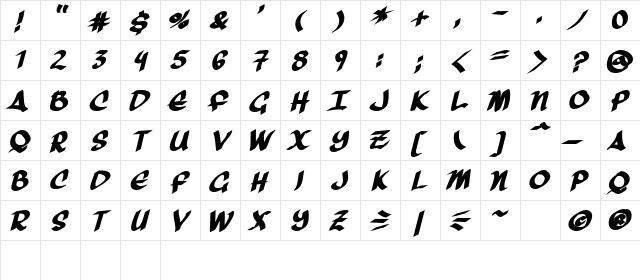
Three Arrows Bold Free Font
Three Arrows Bold
Design Context for Three Arrows
Three Arrows is a composed and adaptable typeface that performs quietly and consistently across a wide range of design contexts. Its bold stroke weight gives it real presence on the page.